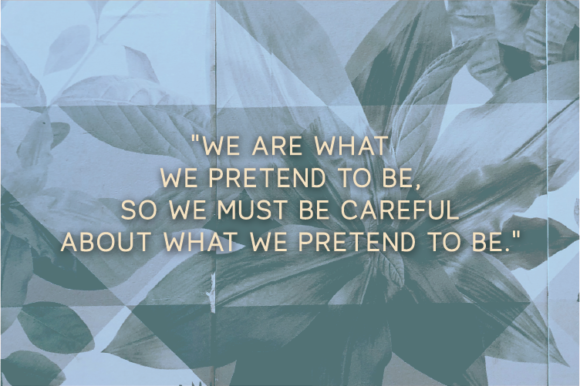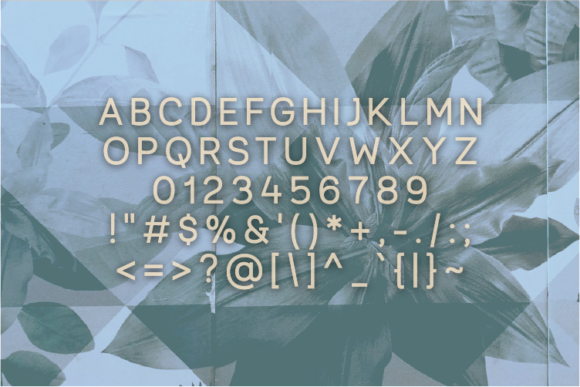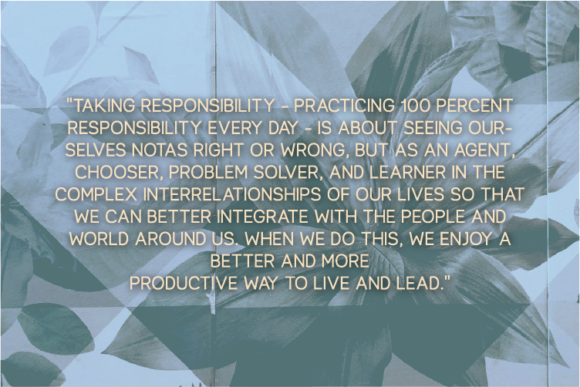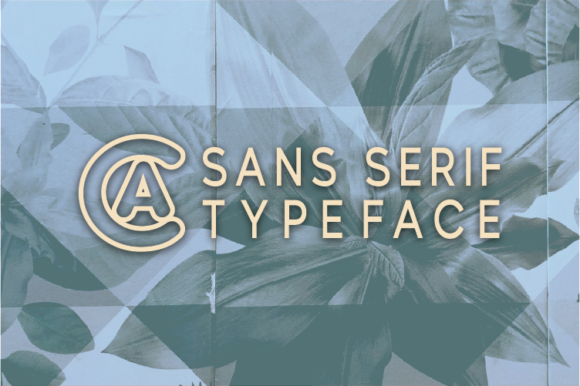
Athennae Font: Elevate Your Designs with a Minimal and Neat Sans Serif
In the world of typography, a font can make or break a design. For designers and crafters looking for a versatile and stylish sans serif font, Athennae is an excellent choice. This minimal and neat font is perfect for a wide range of projects, from branding and advertising to packaging and digital media. In this article, we’ll explore the features and benefits of Athennae Font and how it can elevate your creative ideas.
What is Athennae Font?
Athennae is a modern sans serif font designed to be clean, simple, and highly legible. Its minimalistic approach makes it an excellent choice for designers who want to convey a sense of sophistication and elegance in their work. The font’s neat lines and curves create a visually appealing aesthetic that can be used in a variety of contexts.
Key Features of Athennae Font
- Minimal and neat design: Athennae’s simple and clean design makes it perfect for designs that require a subtle touch.
- Sans serif: The font’s sans serif style gives it a modern and sleek look that’s ideal for digital media and print designs.
- Highly legible: Athennae’s clear and concise lines ensure that your text is easy to read, even at small sizes.
- Versatile: The font’s neutral design makes it suitable for a wide range of projects, from headings and titles to body text and captions.
Benefits of Using Athennae Font
So, why choose Athennae Font for your next project? Here are just a few benefits of using this versatile font:
- Easily paired with other fonts: Athennae’s neutral design makes it easy to pair with other fonts, allowing you to create unique and interesting typography combinations.
- Perfect for digital media: The font’s clean lines and modern aesthetic make it ideal for digital media, including websites, social media, and mobile apps.
- Great for branding and advertising: Athennae’s sophisticated design makes it perfect for branding and advertising projects, where a professional and elegant look is essential.
- Suitable for crafters and DIY projects: The font’s simplicity and elegance make it a great choice for crafters and DIY enthusiasts looking for a stylish font for their handmade projects.
How to Use Athennae Font in Your Designs
Using Athennae Font in your designs is easy. Here are a few tips to get you started:
- Use it as a heading font: Athennae’s bold and clean design makes it perfect for headings and titles.
- Pair it with other fonts: Experiment with pairing Athennae with other fonts to create unique and interesting typography combinations.
- Use it for body text: Athennae’s high legibility makes it suitable for body text, especially in digital media.
In conclusion, Athennae Font is a versatile and stylish sans serif font that’s perfect for designers and crafters looking for a minimal and neat font for their projects. Its clean lines, modern aesthetic, and high legibility make it suitable for a wide range of applications, from branding and advertising to digital media and DIY projects. With Athennae Font, you can elevate your designs and make them stand out from the crowd.